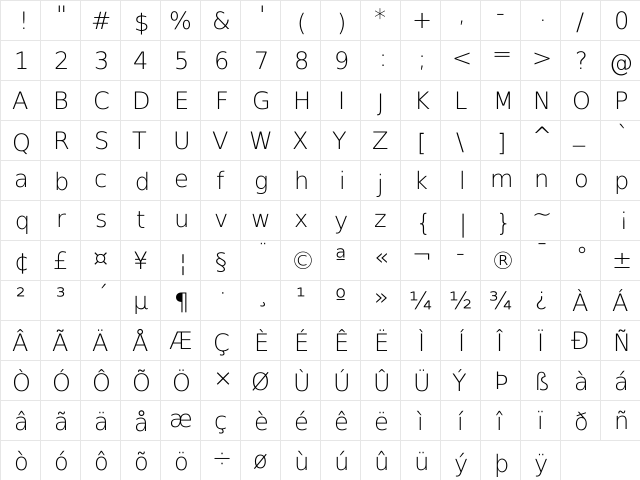
DejaVu Sans Light ExtraLight
| Foundry | DejaVu fonts team |
Design Context for DejaVu Sans Light Typeface
DejaVu Sans Light is a composed and adaptable typeface that performs quietly and consistently across a wide range of design contexts. The delicate stroke weight brings airiness and refinement to layouts.